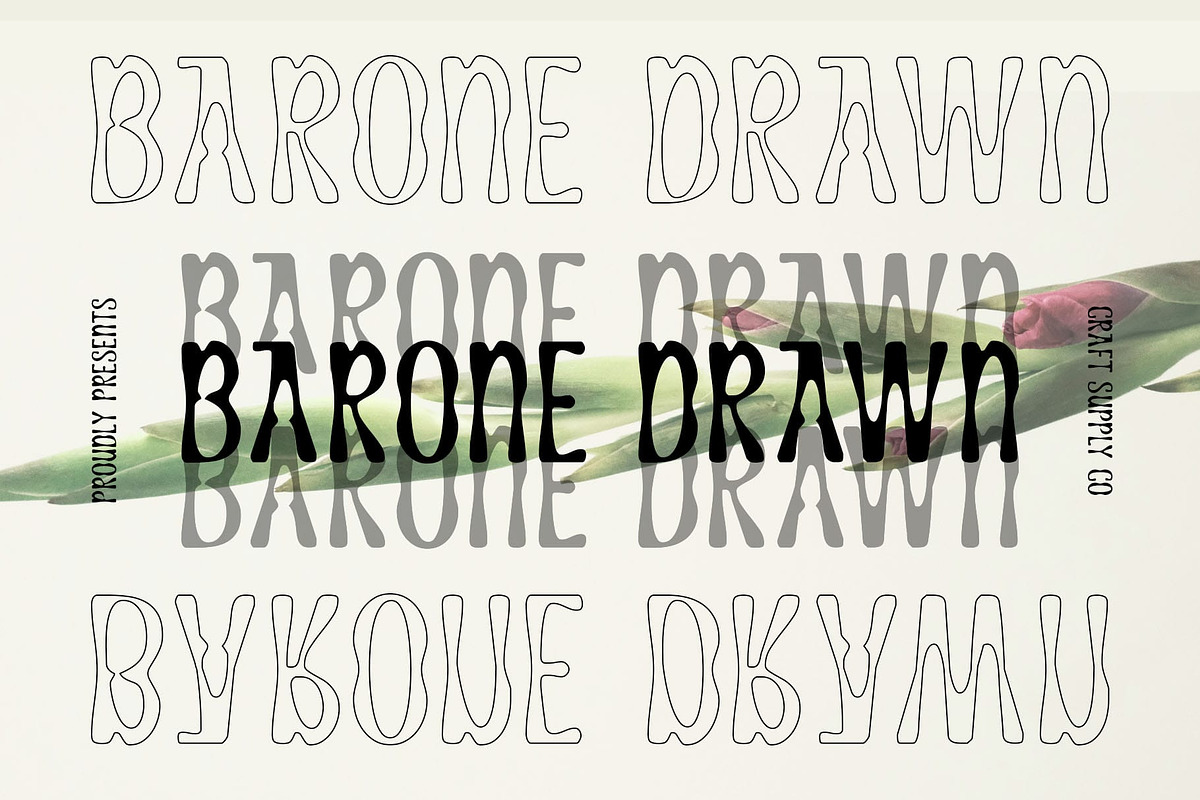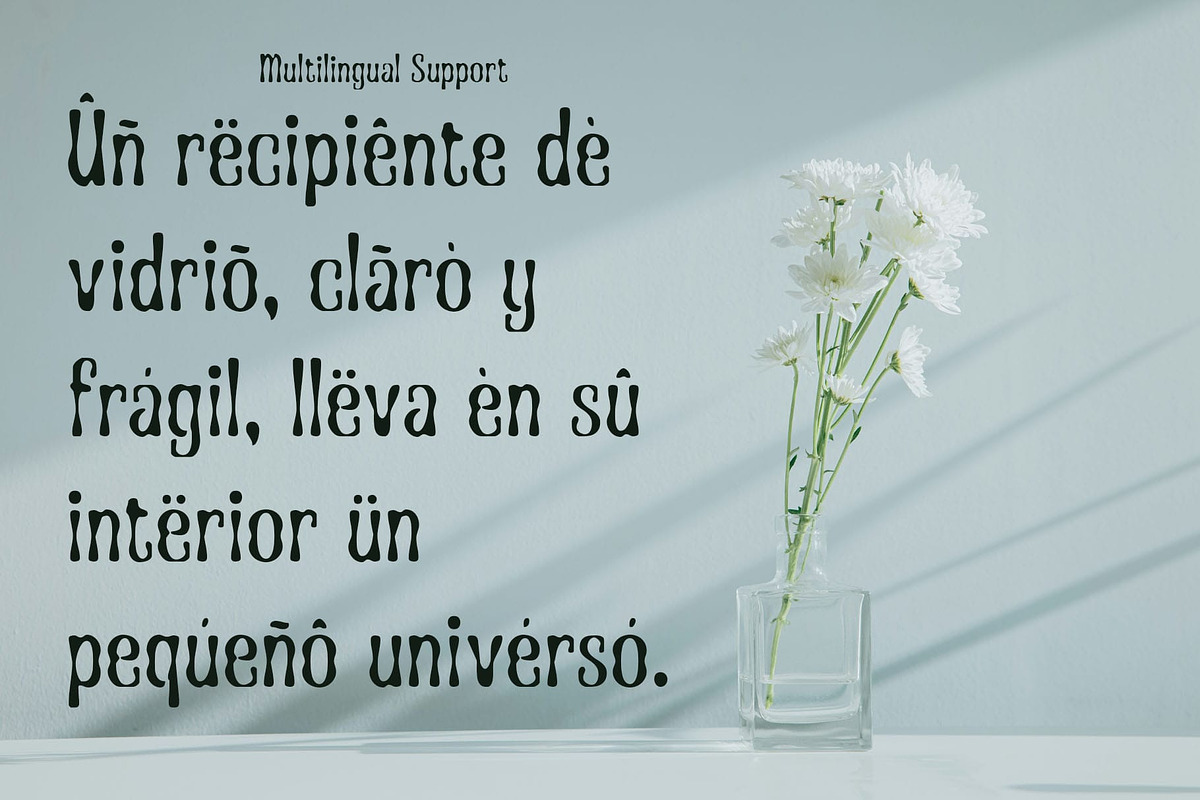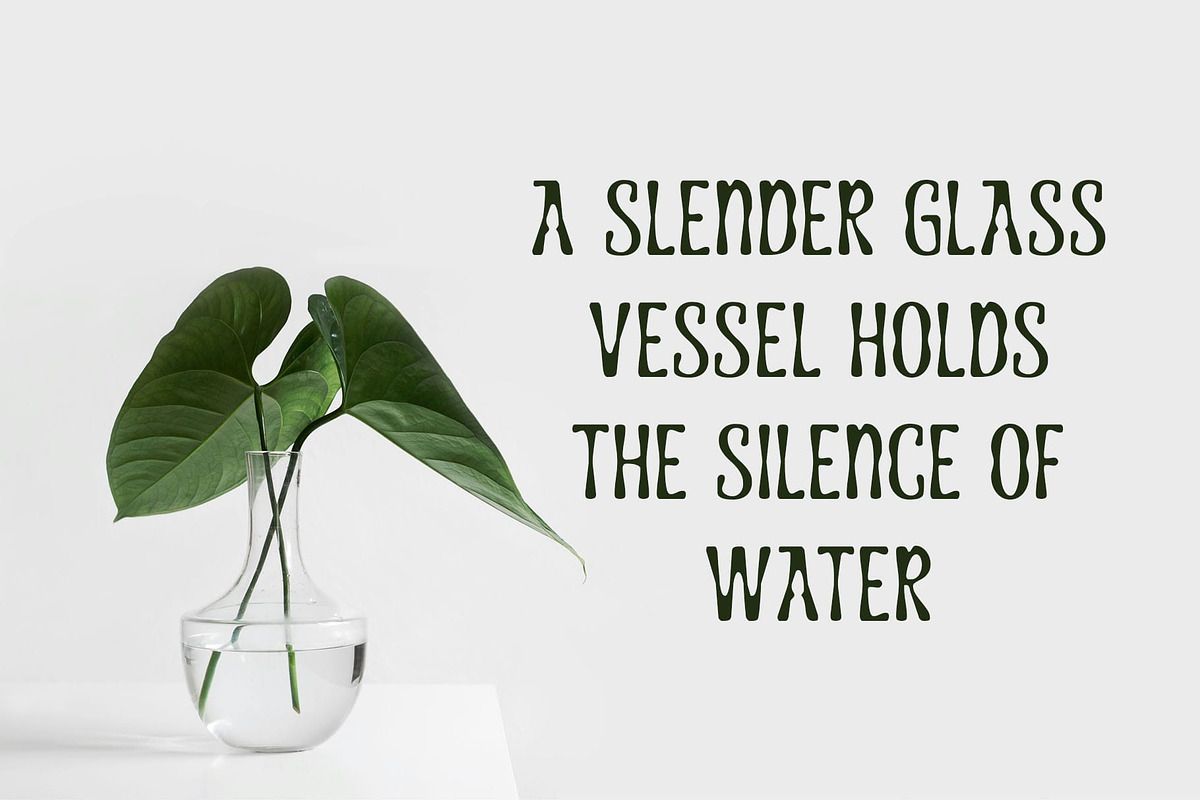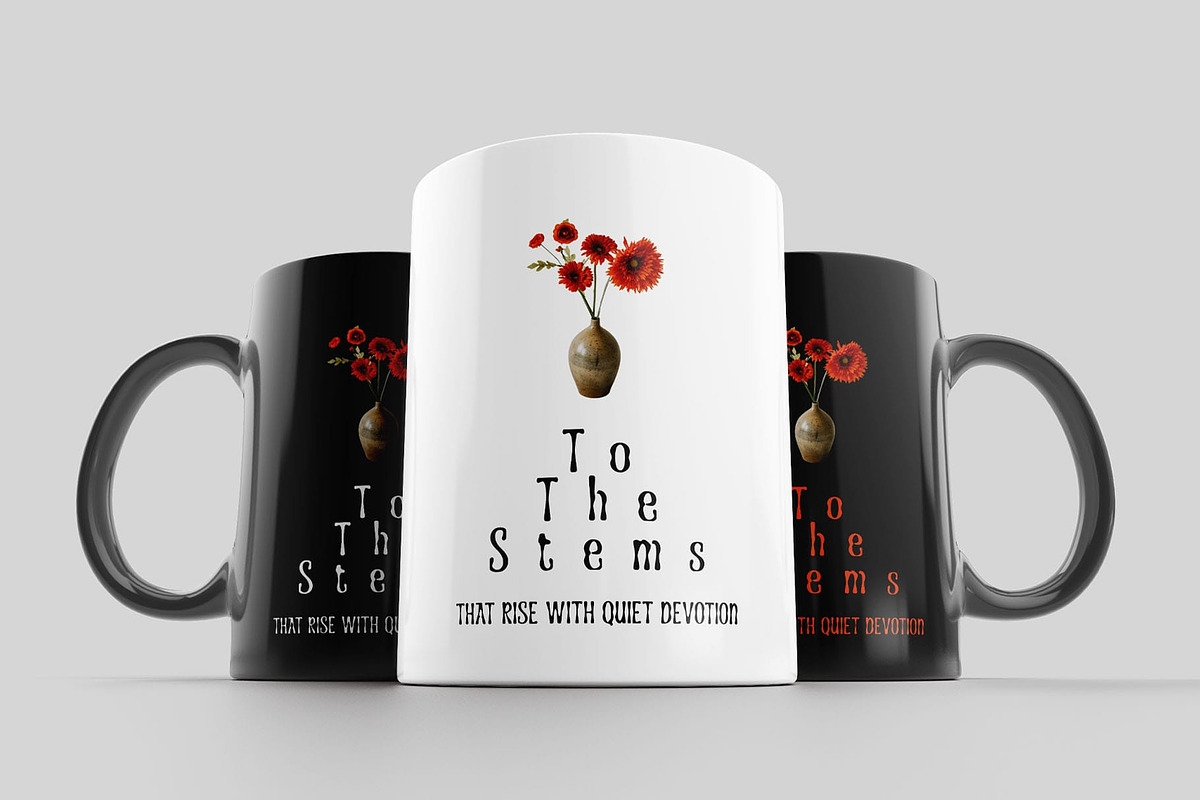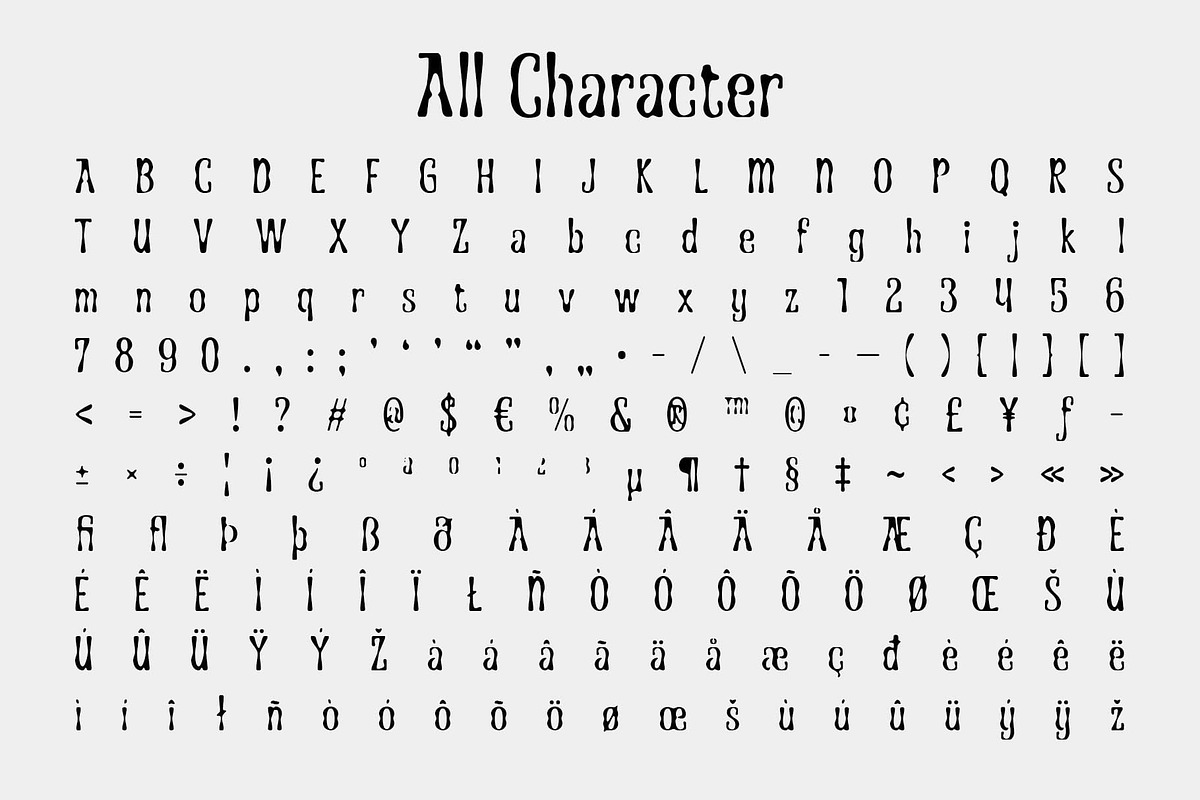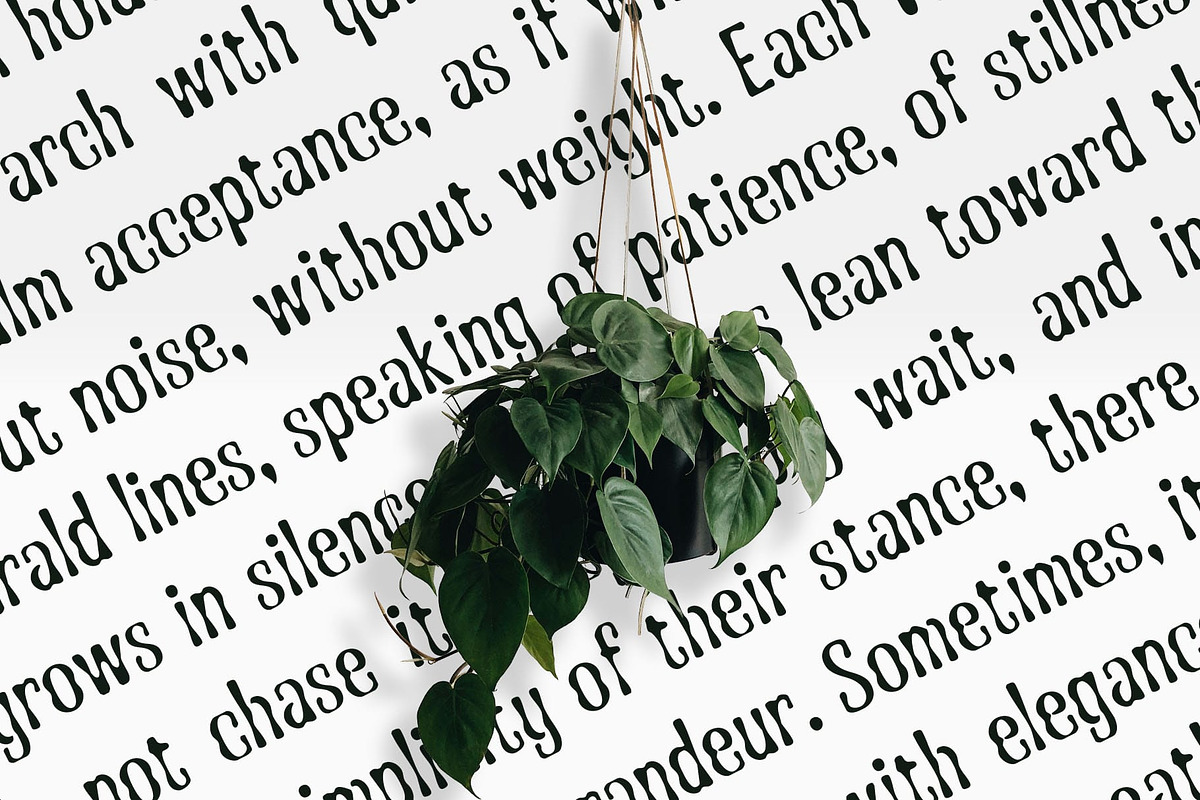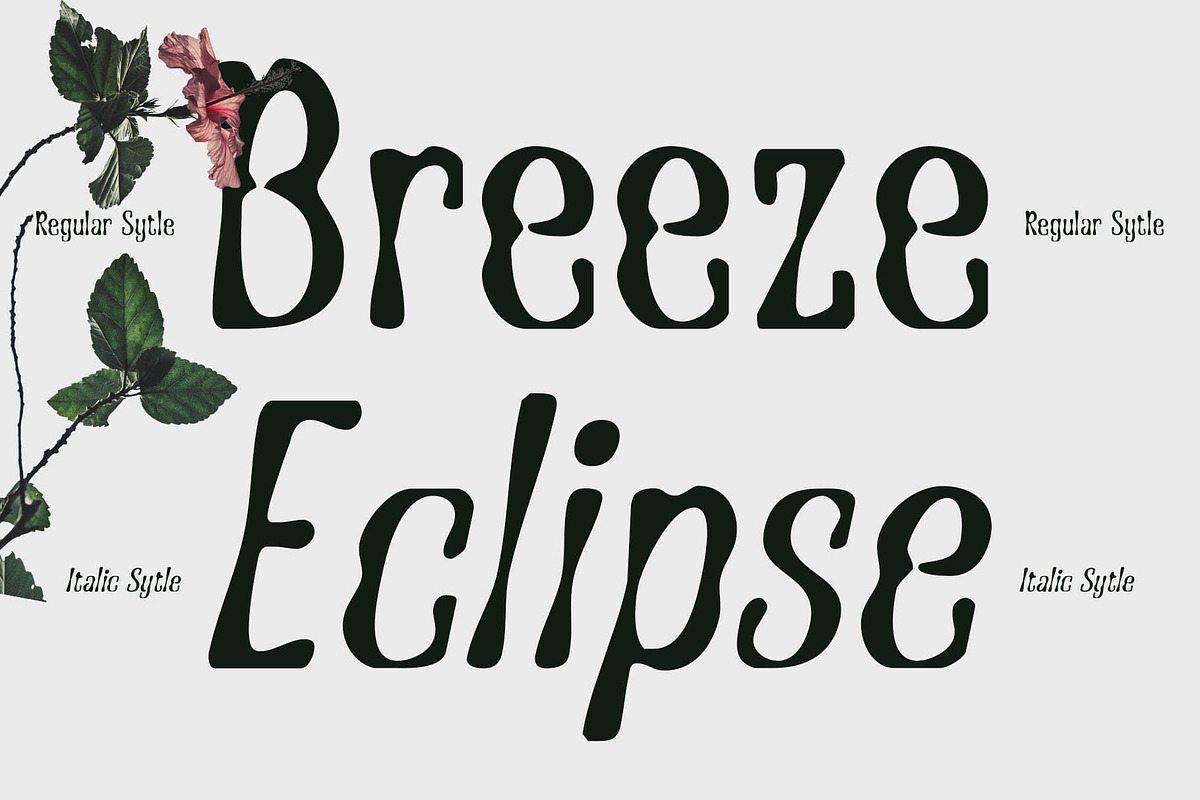
CS Barone Drawn
CS Barone Drawn – Funky Display Font with Handcrafted Charm: Where Retro Energy Meets Artistic Expression
Funky Display with Decorative Curves This is a vibrant and stylish display font that bursts with funky personality. Its decorative curves create a lively rhythm across text, making it stand out in bold, creative compositions. Designed to capture attention, this font brings retro energy and modern flair into perfect balance.
Hand-Drawn Details for Authentic Style What makes the font truly unique is its hand-drawn detailing, which softens the structure and adds authenticity to every letterform. These artisanal touches ensure that each word feels crafted and expressive, elevating projects with a sense of personality that goes beyond standard display fonts.
Perfect for Branding and Visual Impact Whether you’re designing branding, retro-inspired posters, or dynamic music visuals, delivers impact and style. Its funky shapes and decorative accents are especially effective in bold layouts that need to spark creativity and engagement. This versatility makes it a valuable tool for designers aiming to merge playfulness with professionalism.
Retro Spirit with Modern Creativity By combining funky retro influences with handcrafted artistry, this font creates a design language that feels both nostalgic and contemporary. It’s a font that thrives in projects where creativity is celebrated whether in music, fashion, or artistic promotions leaving a lasting impression with its vibrant character.